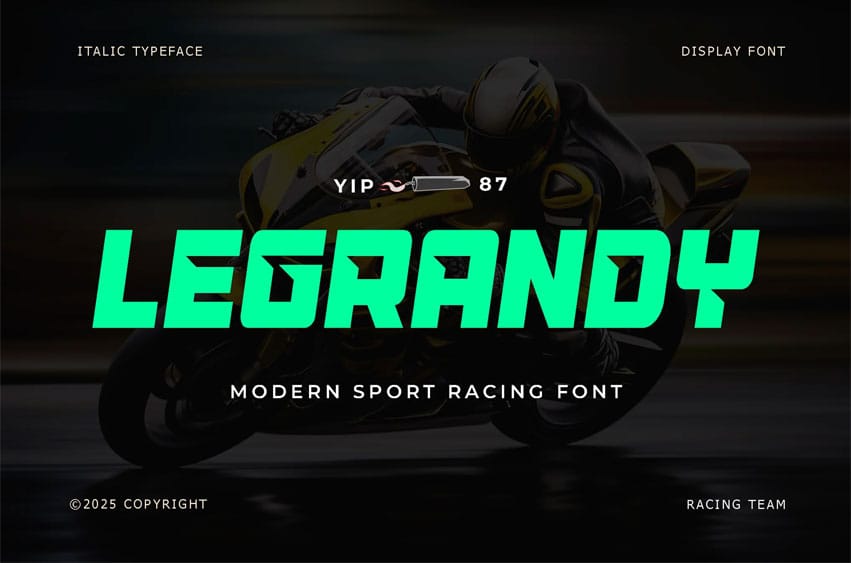
Legrandy Font is a modern display font with an aggressive, bold, and futuristic sports racing style. Inspired by the high-speed world of motorcycle racing, esports, and technology branding, Legrandy is designed to convey a strong, fast, and masculine impression. The geometric capital letters with sharp cuts make it an ideal choice for logos, action posters, game titles, and high-energy creative projects. Suitable for designers looking for a typeface with a bold and powerful character.